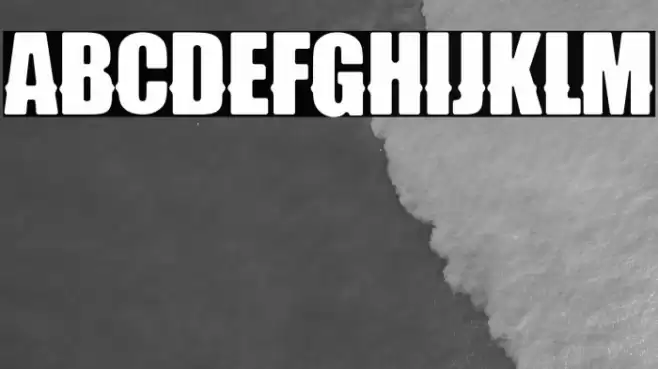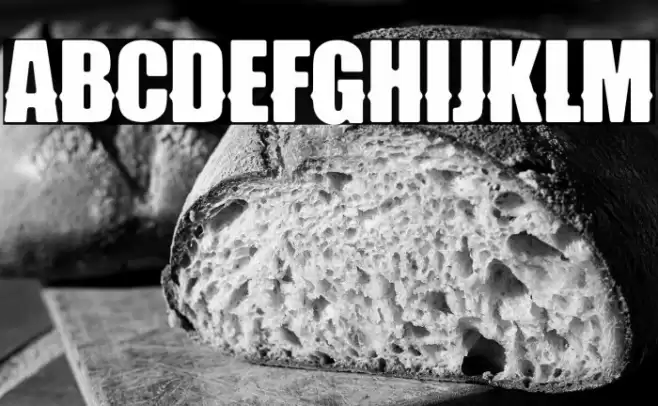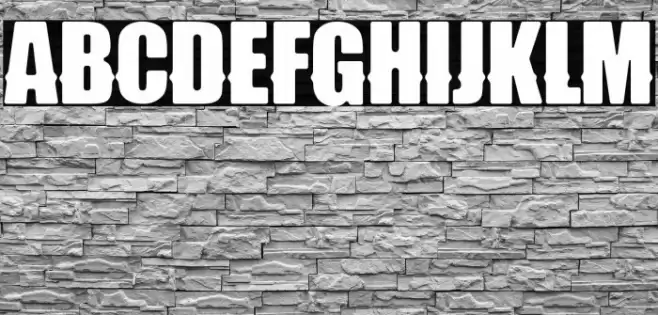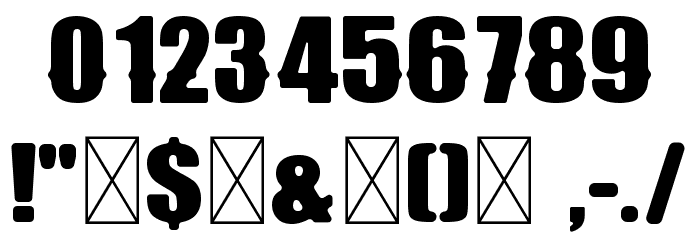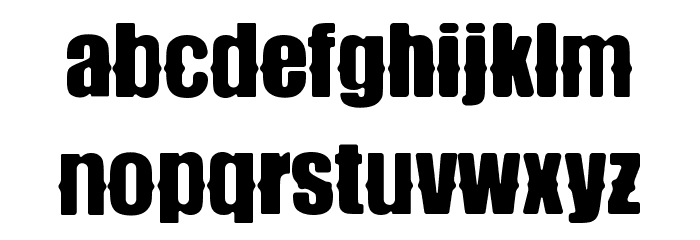
Monstard Bold Font
Monstard Bold Description
This bold and impactful font features thick, block-like characters with a strong presence. The uppercase letters are robust and commanding, while the lowercase letters maintain a consistent weight, offering a cohesive look. The numerals are equally bold, ensuring visibility and readability. The special characters are designed to match the overall boldness, making them stand out effectively. This font is perfect for making a statement, with its heavy weight and solid structure.
A bold, impactful font with thick, block-like characters from Uncategorized fonts.
- Font: Monstard Bold
- Proposed Projects: Ideal for headlines, posters, branding, and any project requiring a strong visual impact.
Monstard Bold UPPERCASE
Monstard Bold LOWERCASE
Monstard Bold OTHER CHARS